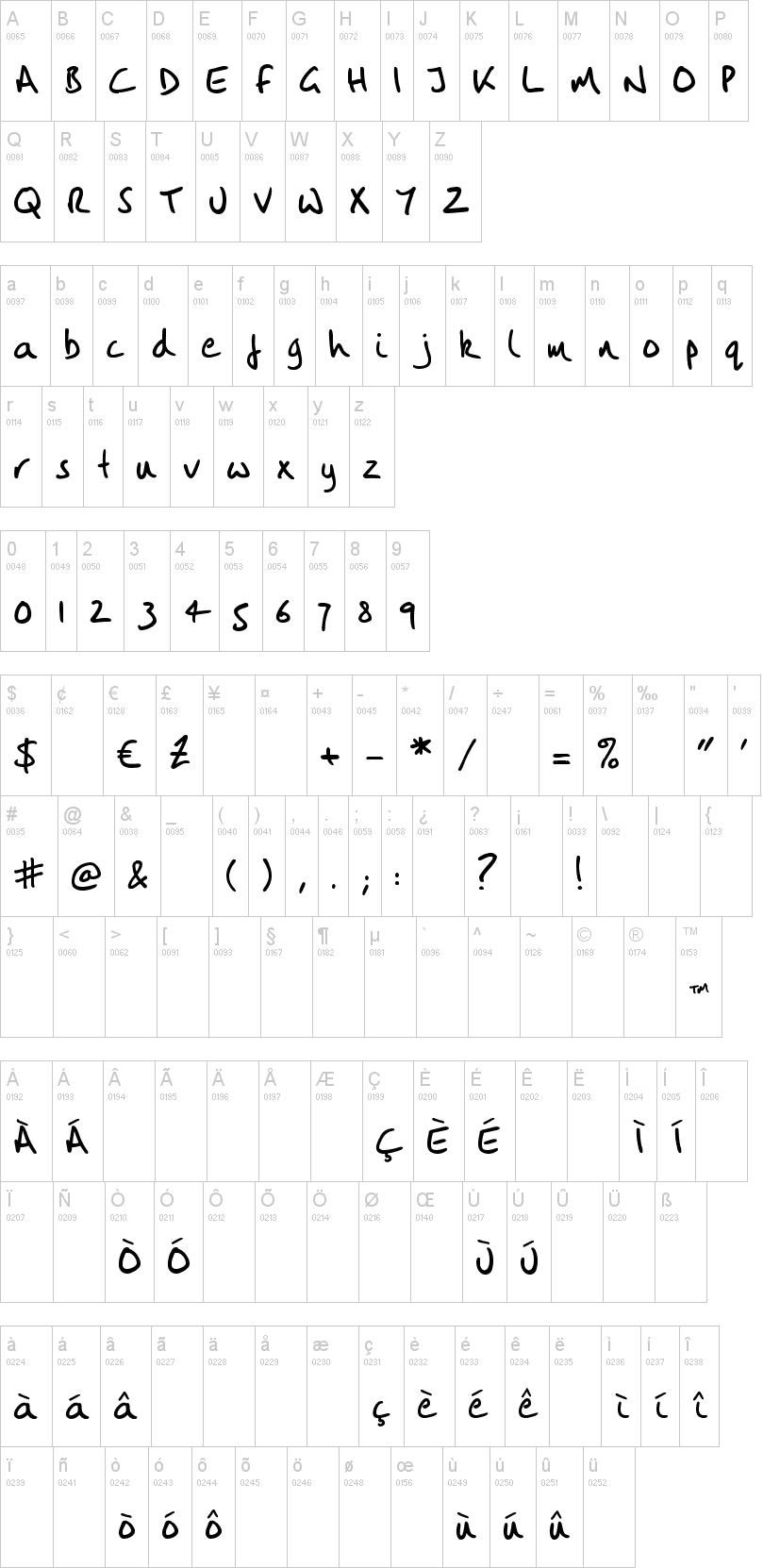
Шрифт Vintlys Hand
This font is my handwriting - please feel free to use in any way you like. Updated with French characters including Euro symbol, any suggestions for required icons etc are welcome.